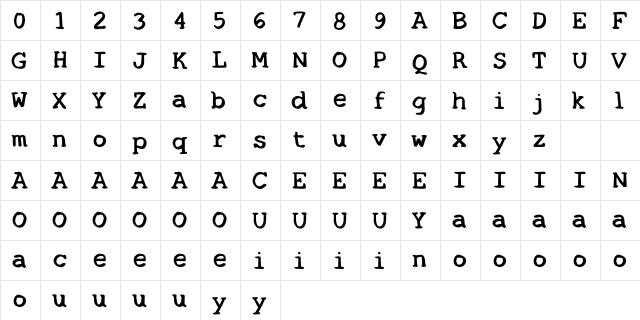
Hold Regular
Design Context for Hold Typeface
Hold offers clean, dependable letterforms without strong stylistic allegiance, making it a practical choice for designers who need flexibility.
Pro Tip: Use Hold in both headline and body roles to test its range before committing to a single application.